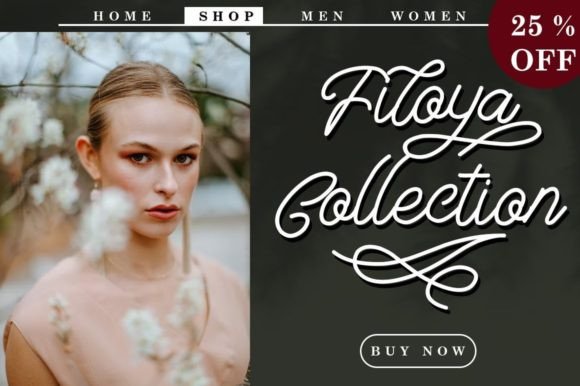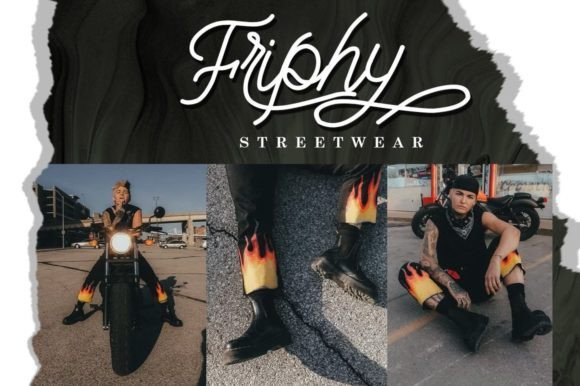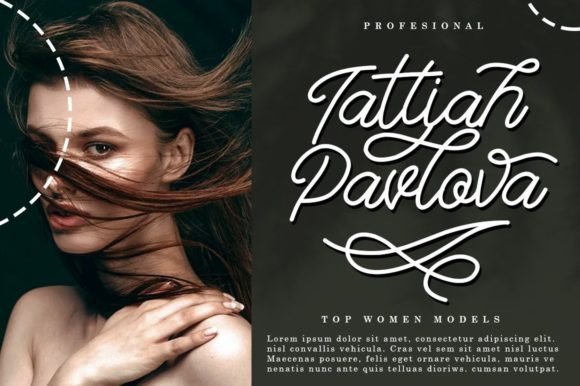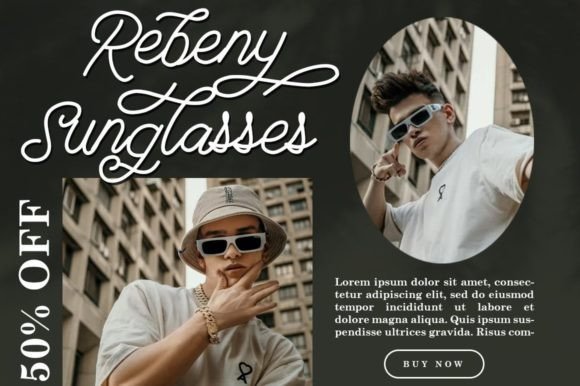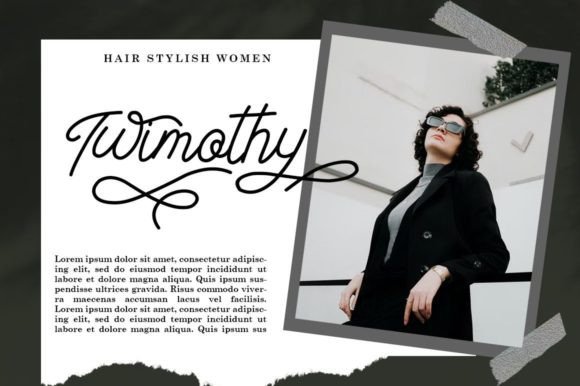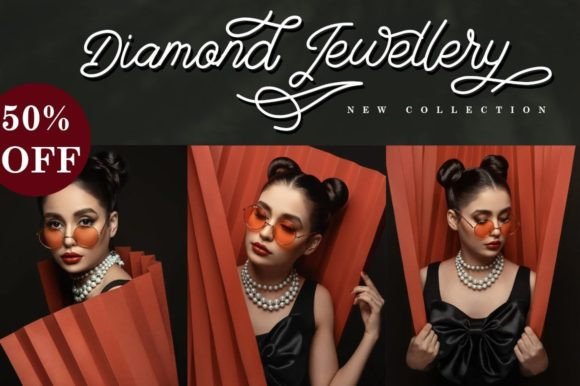
Introduction to Halmaira Gekatya Font
Have you ever been browsing through a beautifully designed wedding invitation and felt an instant urge to replicate that elegant look for your next creative project? For designers, finding the perfect font can make all the difference between a good design and a great one. That’s where the Halmaira Gekatya Font comes in – a stylish, simple, and adaptable handwritten font that can elevate your designs to the next level.
Whether you’re working on a business card, greeting card, social media post, or even wall art, the Halmaira Gekatya Font is an excellent choice. Its PUA encoded feature allows for seamless access to all glyphs and swashes, making it a high-quality design resource for any creative project. With a transparent background and free download option, you can easily incorporate this beautiful font into your designs, taking your work to new heights.
- Unique, high-quality design suitable for creative projects and design resources.
- Designed to be highly legible, with a clear and crisp font style suitable for a wide range of creative projects.
Honest Review: Halmaira Gekatya Font
I recently had the chance to work with the Halmaira Gekatya Font, and I must say it’s been a game-changer for my creative project. The moment I downloaded it for free, I knew I was in for a treat. The high quality of this design resource is simply stunning.
Here are some of the things that work well: ✨
- Unique and intricate design patterns
- Perfect for creating a mysterious and mystical atmosphere
- Works beautifully with a transparent background
- The font is quite ornate, so it may not be suitable for all types of text-based content
- The free download version may have some minor glitches
Overall, I’m thoroughly impressed with the Halmaira Gekatya Font. Its high quality and versatility make it a valuable addition to any designer’s toolkit. If you’re working on a creative project and want to add a touch of elegance and sophistication, I highly recommend giving it a try.
To get the most out of the Halmaira Gekatya Font, use it on a transparent background to create a modern and sleek design. Experiment with different font sizes and styles to create a visually appealing effect.
The Halmaira Gekatya Font is perfect for creating a variety of designs, including:
- Branding materials, such as logos and business cards.
- Marketing materials, such as flyers and brochures.
- Digital designs, such as social media graphics and website headers.